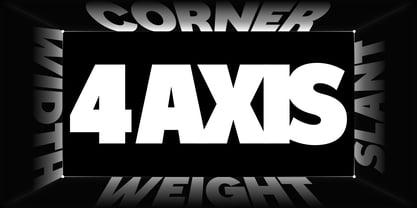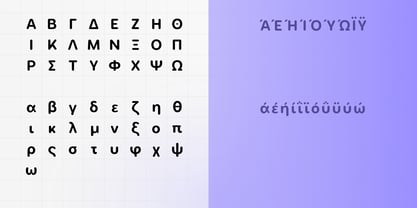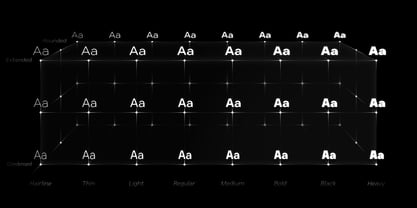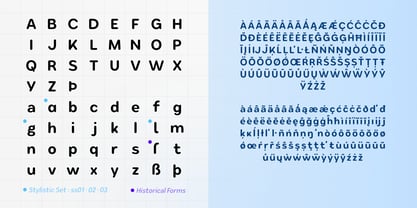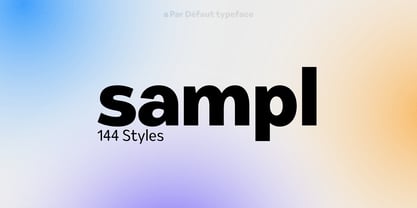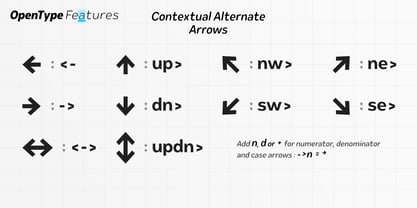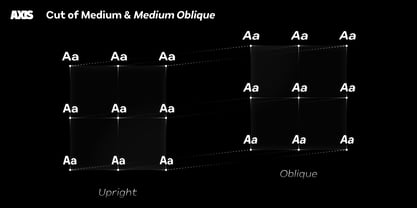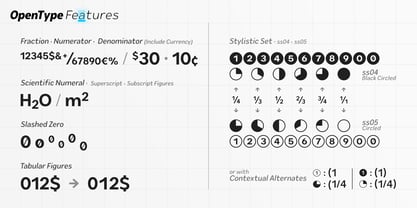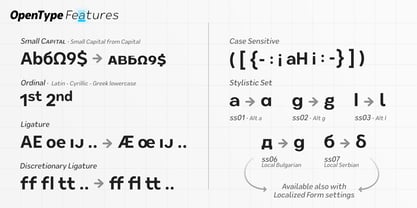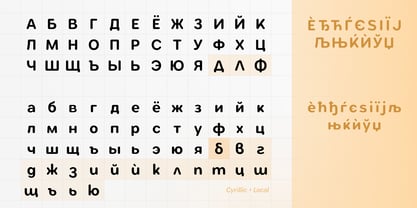
Sampl
The Sampl Font Family was designed by Nathanaël Dorange and published by Par Défaut. Sampl contains 144 styles and family package options. More about this family
Sampl is a sans serif typeface
Compose of 144 styles in 4 Axis
• 8 Weights : Hairline - Thin - Light - Regular - Medium - Bold - Black - Heavy
• 3 Widths : Condensed - Regular - Extended
• 3 Corners : Regular - Soft - Rounded
• & Upright or Oblique
With the Latin, Cytillic and Greek alphabet support more than 100 languages
Sampl is also very customizable with OpenType Features :
Fraction - Numerator - Denominator - Superscript - Subscript - Tabular Figure - Slashed Zero - Ordinal - Small Capital from capital - Stylistic Set : ss01 -> ss07 - Ligature - Discretionary Ligature - Historic Form - Contextual Alternate - Local - Case Sensitive
Numerator and Denominator includes numerals and currency
Small Capital features includes the Latin, Cyrillic and Greek alphabet with the accents
Ordinal feature includes the Latin,Cyrillic & Greek lowercase alphabet
7 Stylistic sets:
Alt a - Alt g - Alt l includes accents
Local Bulgarian, Local Serbian
Circled & Black Circled Figure : Figure + zero slashed + Fraction ( 1/4 - 1/3 - 1/2 - 2/3 - 3/4 - 1/1 )
Discretionary Ligature includes 'AE' - 'AÉ' - 'IJ' - 'OE' available in lowercase and small capital
Contextual Alternate includes
Script for arrows : <- | -> | <-> | up> | dn> | updn> | nw> | ne> | sw> | se> & add n, d or + for Numerator, Denominator and Case arrows : ->n
Script for Circled : '(1' = ① | '(1/2' = ◐
Script for BlackCircled : '(1)' = ❶ | '(1/2)' = ◑